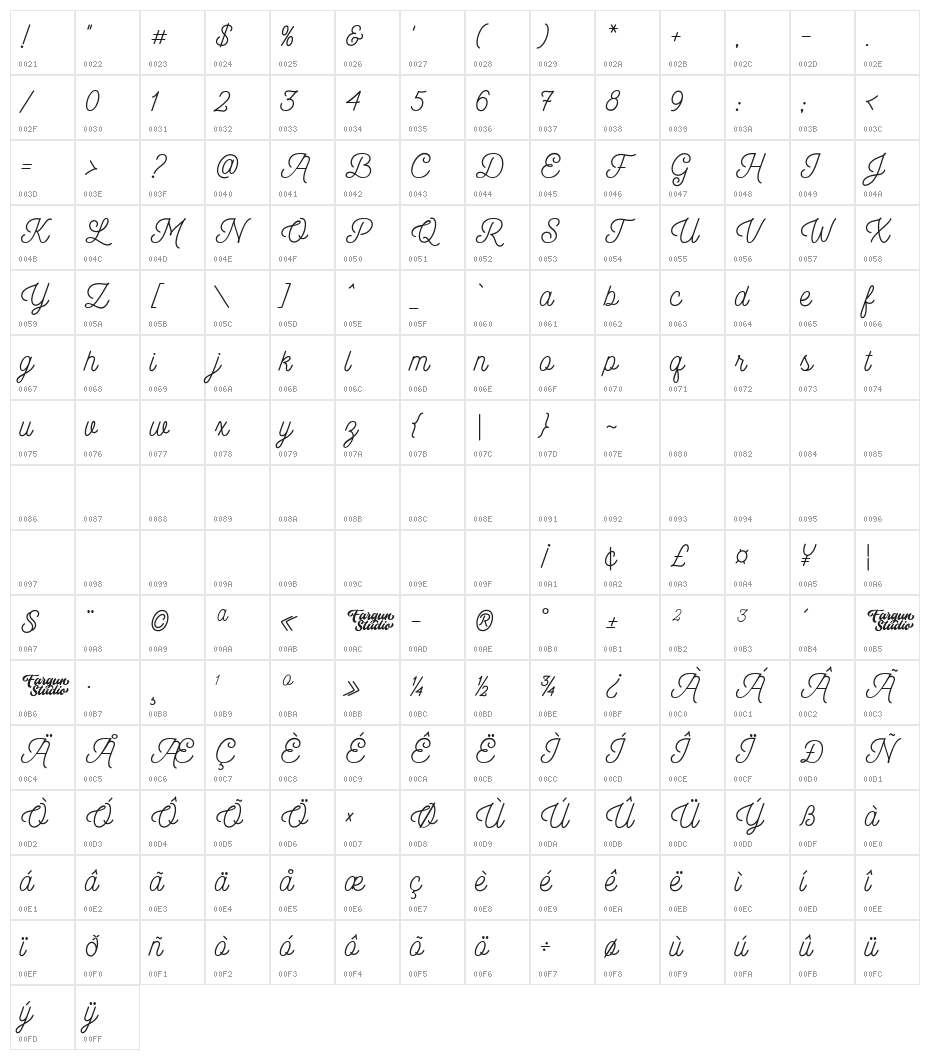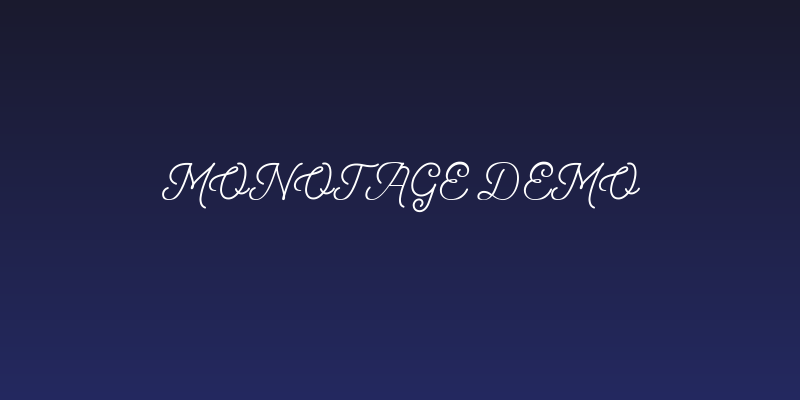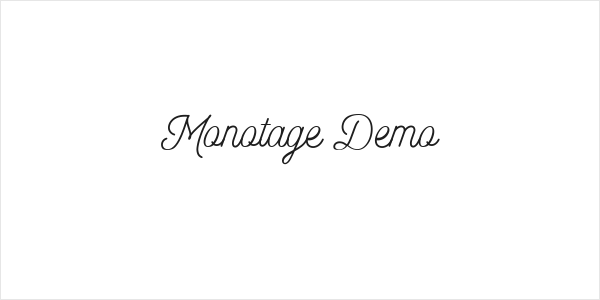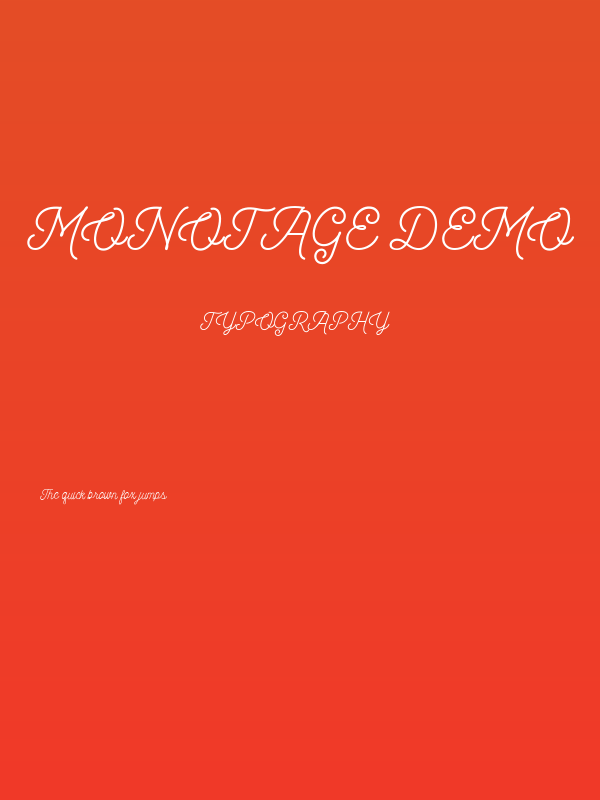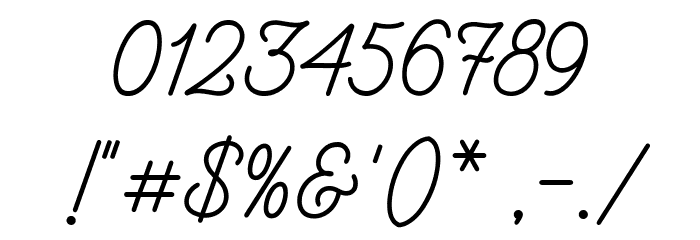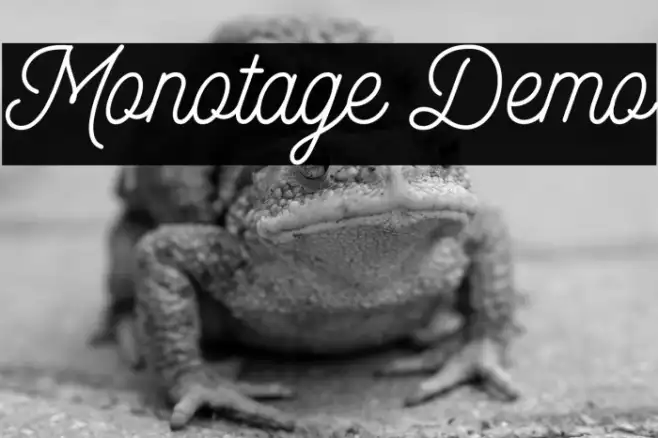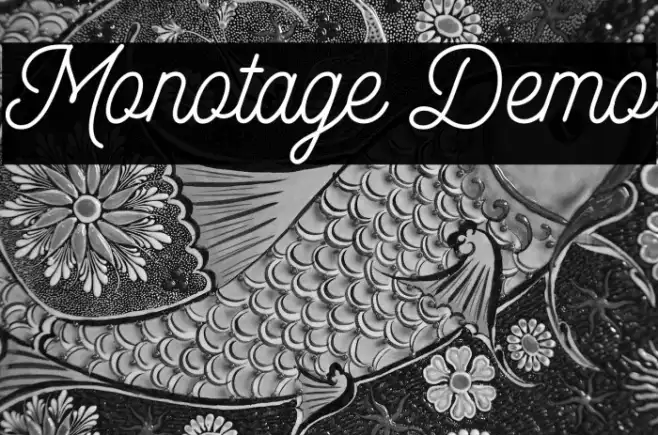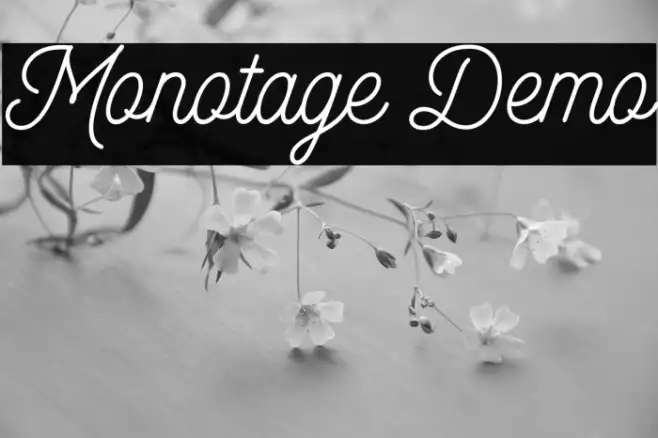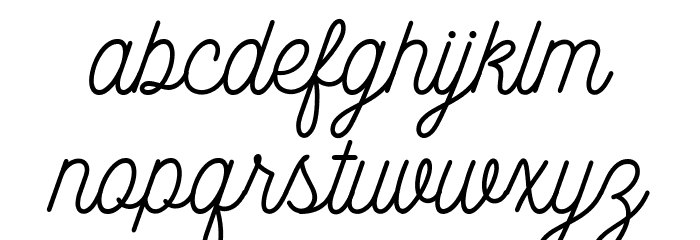
Monotage Demo Font
Monotage Demo Description
This elegant script font features a flowing, cursive style with smooth, continuous strokes that connect seamlessly between letters. The uppercase letters are gracefully looped, while the lowercase letters maintain a consistent, fluid motion. The numerals are designed with a similar cursive flair, adding a touch of sophistication. Special characters are integrated harmoniously, maintaining the overall aesthetic. This font exudes a sense of elegance and refinement, making it suitable for formal and decorative applications.
| Use Case | Headlines, Invitations, Branding |
| Proposed Projects | Ideal for wedding invitations, elegant branding, greeting cards, and decorative headings. |